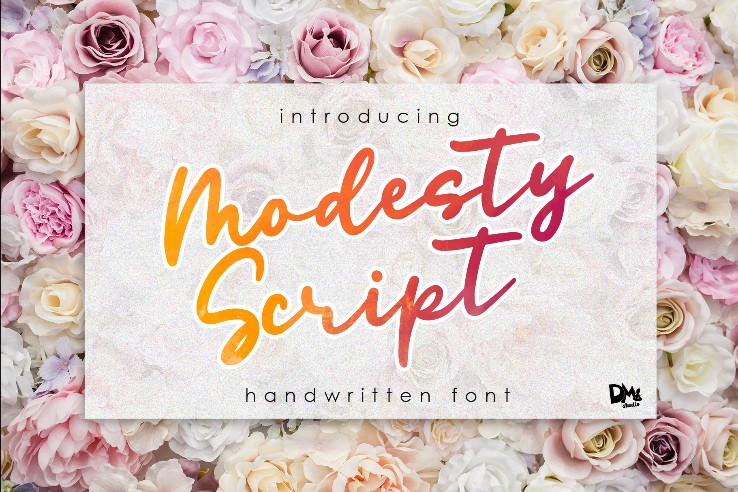
Modesty Script – Handwritten Font
The Modesty Script Handwritten Font is a graceful and versatile typeface that embodies the charm and elegance of handwritten script. With its flowing strokes and delicate curves, this font adds a touch of sophistication and authenticity to your designs, making it perfect for invitations, logos, branding, and other projects that require a touch of personalization.
1. Graceful and Elegant Style: The Modesty Script Font exudes a graceful and refined aesthetic. Its flowing strokes and delicate curves create an air of elegance and sophistication, making it ideal for projects that require a touch of beauty and finesse.
2. Handwritten Appeal: The font emulates the natural and organic quality of handwritten script, adding a personal and authentic touch to your designs. It captures the fluidity of real handwriting, creating a sense of warmth and intimacy.
3. Versatile Application: This font is versatile and well-suited for various design projects that aim to evoke a sense of elegance and personalization. Use it in invitations, wedding stationery, logos, branding, and more to add a touch of sophistication to your designs.
4. Uppercase and Lowercase Letters: The font includes both uppercase and lowercase letters, providing flexibility and creative freedom in your designs. Mix and match the cases to create visually appealing and balanced typography.
5. Punctuation and Symbols: In addition to the alphabet, the Modesty Script Font includes a comprehensive set of punctuation marks, numerals, and common symbols. This ensures consistency and ease of use when incorporating the font into your design projects.
Embrace the grace and elegance of the Modesty Script Handwritten Font. Let its flowing strokes and delicate curves add a touch of sophistication and authenticity to your invitations, logos, and branding. Create designs that exude beauty and finesse with this elegant and versatile font.